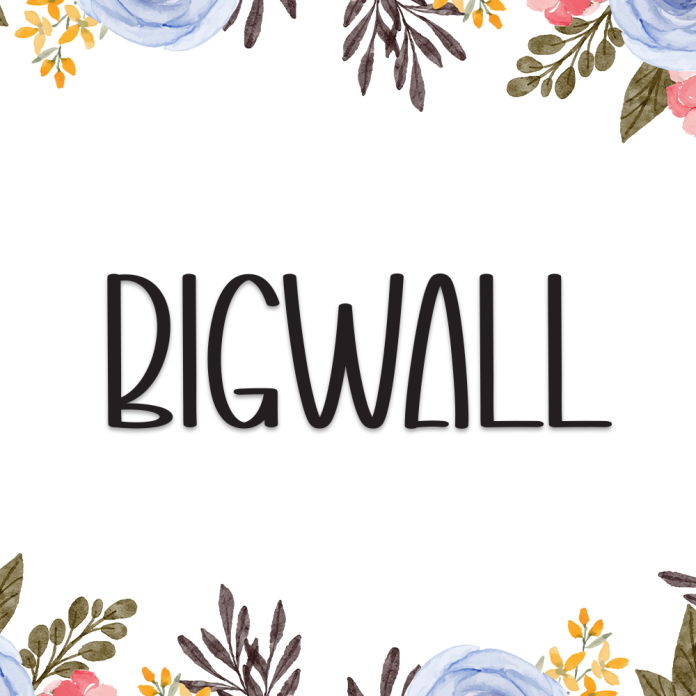
Bigwall is a strong and impactful display font inspired by urban murals and street art. With thick, confident strokes and a modern edge, this font is perfect for bold statements, creative branding, and designs that demand attention.
Ideal for posters, logos, t-shirt designs, album covers, and urban-themed projects, Bigwall stands tall and fearless.
Bold, heavy display style
Urban and street-art inspired design
Great for headlines, branding, streetwear, and graffiti themes
Make your message unmissable with Bigwall — the display font that’s loud, proud, and full of attitude.